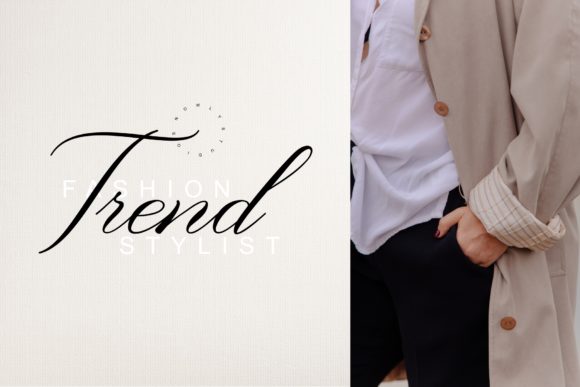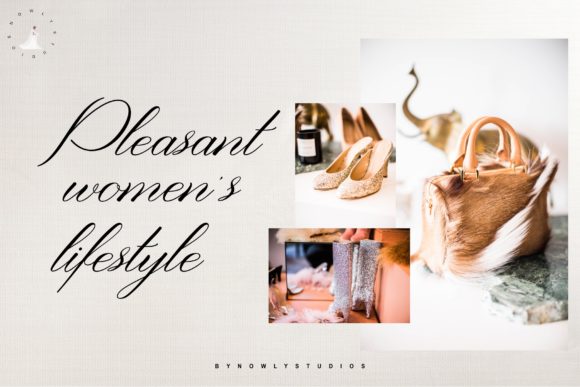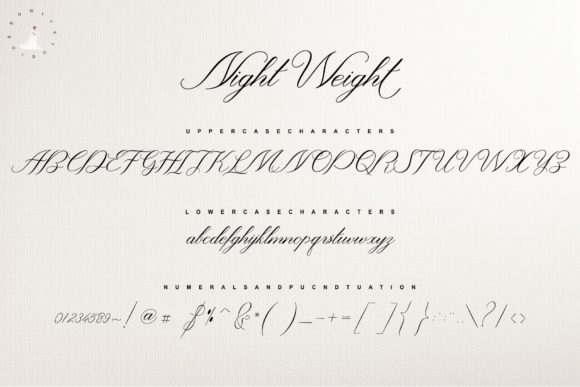
Introduction to Night Weight Script Font
As designers, we’ve all been there – staring at a blank canvas, trying to capture the perfect mood for our next creative project. The words don’t seem to flow, and our imagination is running dry. But then, like a breath of fresh air, we stumble upon a design resource that breathes new life into our work. For me, that moment came when I discovered the Night Weight Script Font.
This elegant script font is a game-changer for designers looking to add a natural, handwritten touch to their designs. With its high-quality design, it’s perfect for a wide range of creative projects, from invitations to advertisements. Plus, it’s available for free download, making it an accessible design resource for anyone. Whether you’re working on a high-end campaign or a personal project, the Night Weight Script Font is sure to elevate your design to the next level.
So, let’s dive into the world of Night Weight Script Font and explore its features, from its transparent background to its versatility in design. Get ready to unlock the full potential of this amazing script font and take your designs to new heights!
Key Features of Night Weight Script Font
- Unique, elegant script font with a dramatic twist, perfect for creative projects and designs.
- Comes with a transparent background, allowing for seamless integration with any design or image.
- Supports a wide range of languages, including Latin, Cyrillic, and Greek alphabets.
- Ideal for use in various design projects, such as wedding invitations, greeting cards, and other creative endeavors.
Honest Review: Night Weight Script Font
I recently had the chance to work with the Night Weight Script Font, and I must say it’s been a game-changer for my creative project. The moment I downloaded it, I was impressed by the high-quality design and the transparent background that makes it so versatile.
Here are some things that work well: ✨ Easy to use: The font is very intuitive, and I was able to get started with my design right away. ✨ Versatile: The transparent background makes it perfect for use on any background, whether it’s a solid color or a busy image. ✨ Unique: The Night Weight Script Font has a distinctive look that sets it apart from other fonts.
- Easy to use
- Versatile
- Unique
However, there are a few limitations: ⚠️ Limited font styles: While the Night Weight Script Font is high-quality, it’s limited to a single style, which might not be ideal for more complex designs. ⚠️ Not suitable for all projects: The font’s script style might not be the best choice for projects that require a more formal or corporate look.
Overall, I’m really impressed with the Night Weight Script Font. It’s a great design resource that’s perfect for creative projects, and I would definitely recommend it to anyone looking for a high-quality, unique font. With its transparent background and easy-to-use design, it’s a great addition to any designer’s toolkit.
Tips for Getting the Most Out of Night Weight Script Font
Use the Night Weight Script Font in combination with a transparent background to give your design a unique look. Experiment with different font sizes and colors to get the desired effect. You can also use this font in conjunction with other design resources to create a cohesive look.
Common Use Cases for Night Weight Script Font
The Night Weight Script Font is commonly used in creative projects, such as logos, social media posts, and presentations. It’s also used in graphic design, branding, and advertising. With its high-quality design and transparent background, this font is a great resource for designers and creatives.